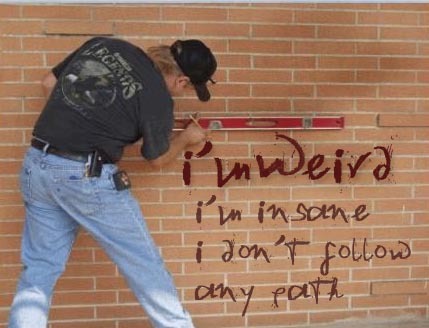
I'mweird, created by Subhashish Panigrahi of eOdissa.com, is a free rough handwritten display font with wiry strokes, abrupt changes in pressure, and restless letterforms that resemble hurried pen marks. Its uneven construction feels raw and deliberately unpolished.
A youth-focused clothing label or independent music venue could use it for branding, merchandise, posters, and event graphics, especially when a rebellious, handmade edge suits the subject. The scratchy lines can also echo loose ink drawings, photocopied textures, and punk-inspired collage, letting the lettering become part of the artwork rather than a polished caption.